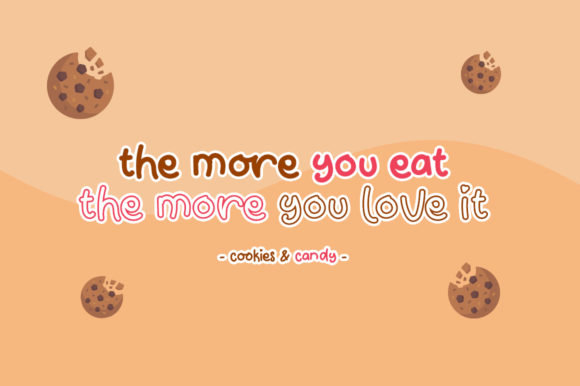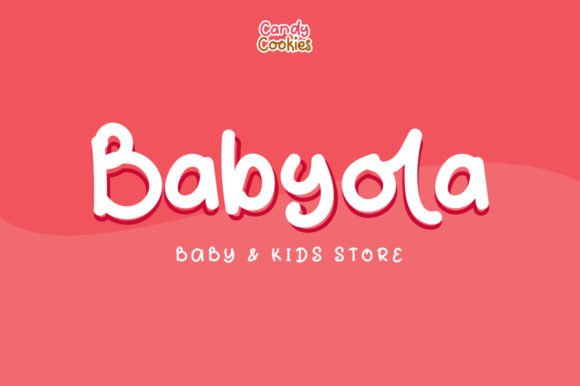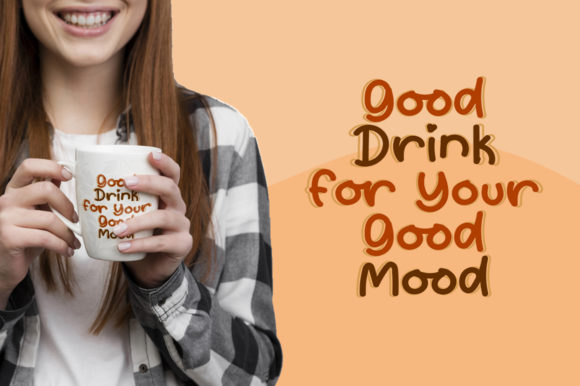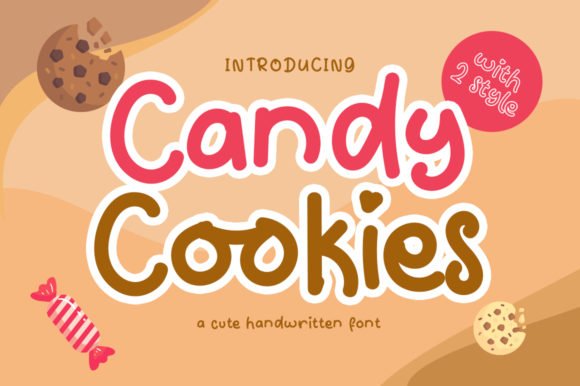
Introduction to Candy Cookies Font
Candy Cookies is a fun handwritten font.
It will elevate a wide range of design projects to the highest level, be it branding, headings, wedding designs, invitations, signatures, logos, labels, and much more .